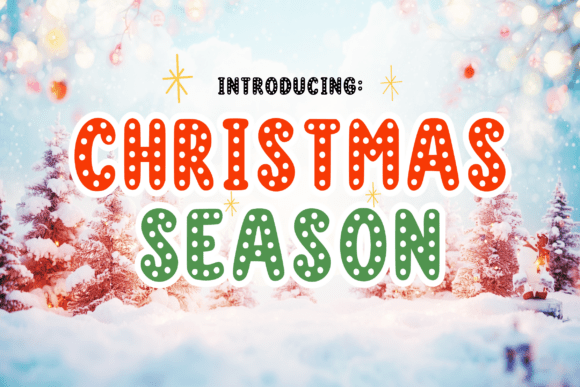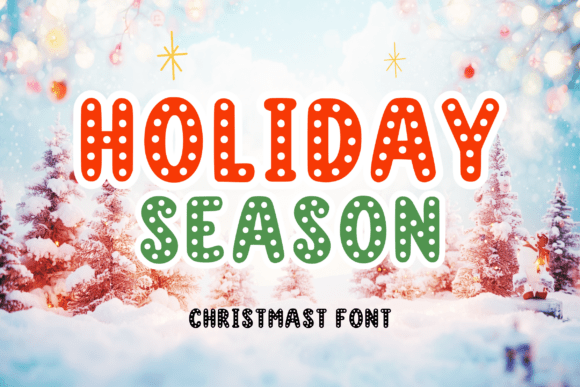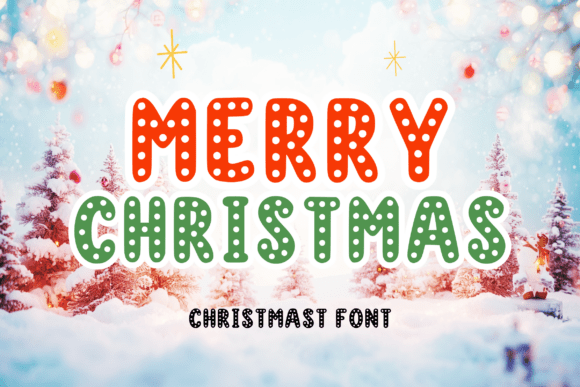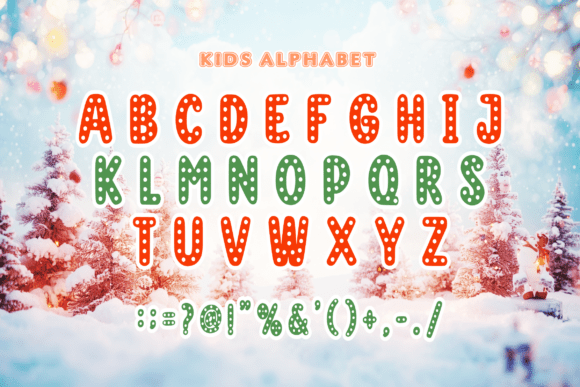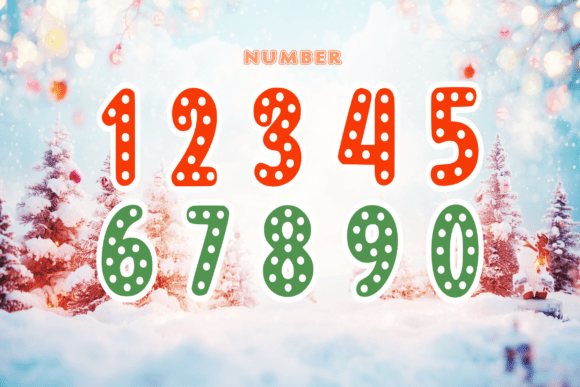
Deck the Halls with Holiday Cheer: Introducing Christmasseason Regular Font
As you sit down to plan your holiday marketing campaigns, social media posts, and gift packaging designs, do you find yourself stuck in a creative rut? We’ve all been there – staring at a blank screen, trying to come up with the perfect festive font to capture the magic of the season. That’s where Christmasseason Regular Font comes in – a fun, decorative display font that’s sure to add instant holiday cheer to your designs.
This playful font is inspired by retro marquee bulbs and classic cookie-cutter lettering, with chunky, rounded forms and polka-dot counters that are perfect for creating eye-catching headlines and tags. With its wide x-height and generous spacing, Christmasseason Regular Font is a breeze to use in Cricut and Silhouette projects, and its tidy kerning ensures that your designs look professional and polished. Whether you’re a seasoned designer or just starting out, this font is a valuable addition to your holiday design toolkit.
- Unique Characteristics: The Christmas Season Regular Font features a festive, hand-drawn design with subtle texture and ornaments, evoking a warm and inviting atmosphere
Designer Review: Christmasseason Regular Font
Overall, I think the Christmasseason Regular Font has a lot of potential, but it falls short in a few key areas. ✨ The font’s playful, handwritten feel makes it a great choice for festive holiday projects or children’s materials.
- ✨ The font’s irregularities give it a fun, hand-drawn look that’s perfect for adding a personal touch to your designs.
- ✨ The letterforms are well-proportioned and easy to read, even at smaller sizes.
- ✨ The font is highly customizable, with a range of styles and weights available to suit your needs.
However, there are a few limitations that hold the font back:
- ⚠️ The font’s irregularities can sometimes make it difficult to read, especially in long blocks of text.
- ⚠️ The font may not be suitable for formal or professional projects, due to its casual, handwritten feel.
- ⚠️ Some of the letterforms may not be perfectly legible, particularly at very small sizes.
Overall, I would give the Christmasseason Regular Font 3.5 out of 5 stars. While it’s a fun and creative choice for the right projects, it may not be the best fit for every design task.
The “Christmas Season Regular Font” is ideal for:
- Creating festive holiday cards and invitations.
- Designing Christmas-themed social media graphics.
- Writing holiday-themed blog posts and articles.
Here are some tips for getting the most out of the “Christmas Season Regular Font”:
- Pair the font with a bold, festive color scheme.
- Use the font in combination with holiday-themed graphics and images.